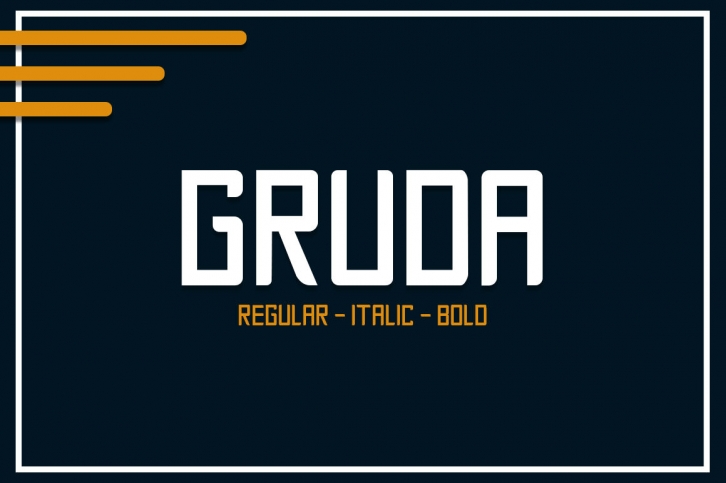
Gruda Family Font Download
The Gruda family font is the perfect family font to add to your font library to create some unique designs such as posters or logos for product or trademark branding.